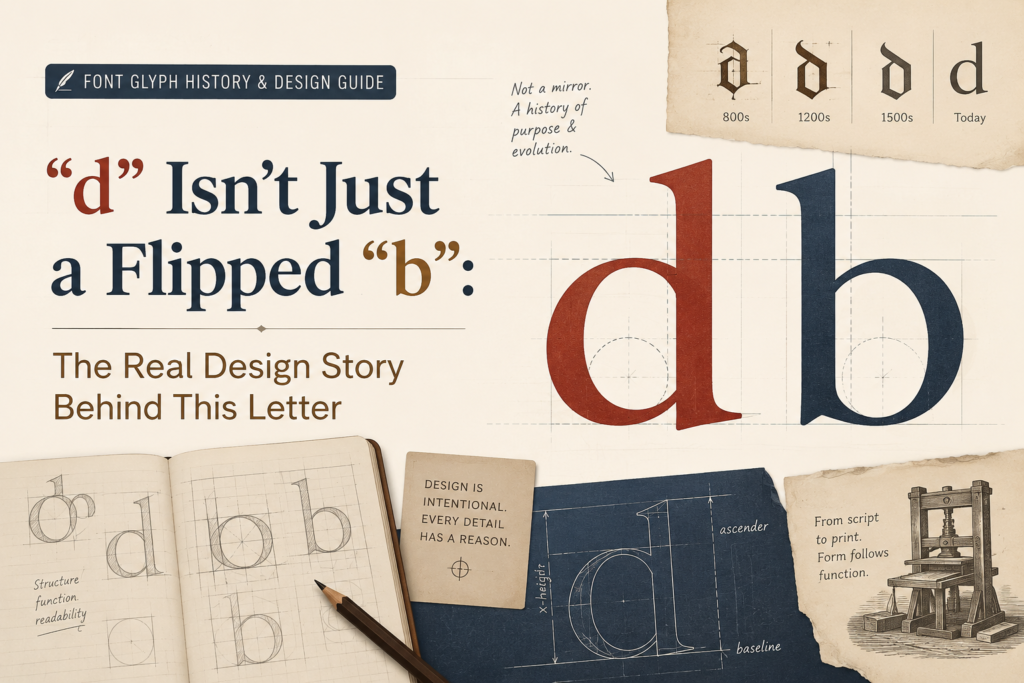
If lowercase “b” is a stem with a bowl on the bottom, “d” is its mirror image — a bowl on the left, a stem rising on the right. On paper that sounds like the simplest relationship in the alphabet: flip one letter, get the other. In practice, type designers will tell you that’s almost never true. “d” needs its own optical corrections, its own bowl proportions, and its own personality, even though it shares bones with “b.” This is the fourth entry in our glyph series, following “a,” “b,” and “c.” Today we’re taking apart “d.”
A Short History of “d”
“d” descends from the Phoenician letter dalet, meaning “door,” and the early pictogram is believed to have represented the triangular shape of a tent flap or doorway — a fitting origin for a letter that, structurally, still reads as an enclosed space attached to a frame. The Greeks adopted it as delta, keeping the triangular form largely intact; you can still see that geometry in the modern Greek capital delta today.
When the letter passed into Etruscan and then Latin, it rounded out considerably. Roman capital “D” settled into the shape we know now: a straight vertical stroke on the left, joined by a curved stroke that bulges out to the right and returns. That’s essentially a stem-and-bowl letter already, just oriented differently from how the lowercase eventually turned out.
Lowercase “d” itself didn’t exist during the capitals-only era of Roman inscriptions. It emerged the same way most lowercase letters did — through the pressure of scribes writing quickly by hand, and later through the standardization pushed during the Carolingian Renaissance in the 8th and 9th centuries. Interestingly, an early handwritten variant of lowercase “d” had a slanted, diagonal ascender rather than a straight vertical one — you can still see traces of this uncial-style “d” survive in some blackletter and heavily calligraphic typefaces today, where the ascender leans rather than standing straight up.
Anatomy of a Lowercase “d”
Lowercase “d” is built from an ascender — the vertical stroke that rises above the x-height — and a bowl, the enclosed rounded shape attached to its base. This is the same vocabulary used for “b,” just mirrored: instead of the bowl sitting to the right of the stem, in “d” the bowl sits to the left of the stem, since the reader encounters the curved shape first, then the vertical stroke.
The point where stem and bowl meet is the joint, and just like in “b,” this is one of the most heavily scrutinized details in the whole glyph. Get the joint too abrupt, and the letter feels stiff. Get it too soft, and the shape can blur together at small sizes, especially in dense body text.
Here’s the detail that surprises people who assume “d” is just a flipped “b”: the bowl in “d” is very often drawn slightly differently from the bowl in “b,” even in the same typeface. This is because the eye reads letters left to right, and a bowl positioned before an ascender can feel visually different in weight and balance compared to a bowl positioned after one. Many type designers adjust the width, curve tension, or even the overshoot of “d”‘s bowl independently, rather than mechanically mirroring “b” and calling it done.
“d” also needs to be checked carefully against “a” and “o,” since all three share curved bowl shapes that need consistent tension, and against “b,” “p,” and “q,” the broader stem-and-bowl family it belongs to.
Designing the Letter From Scratch
Most type designers draw “d” directly after finishing “b,” since the two letters share so much structural DNA. The typical process starts by taking the finished “b” and literally flipping it horizontally as a rough starting point — but that’s where the shortcut usually ends.
Once the letter is flipped, the designer looks at how it reads in actual words. Because “d” comes up constantly next to round letters like “o” and “a” (words like “and,” “dog,” “made”), the bowl’s curve needs to feel visually compatible with those neighbors specifically, not just internally consistent with “b.” This sometimes means widening or narrowing the bowl slightly, or adjusting where the curve is thickest, so “d” doesn’t look like an afterthought bolted onto the rest of the lowercase set.
The ascender height and stroke weight get locked to match “b,” “h,” “k,” and “l” — all the ascending lowercase letters need to top out at a consistent height, or the whole line of text starts to look uneven, almost like it’s vibrating.
Overshoot is handled here too, the same principle used in “a,” “b,” and “c”: since the bowl is rounded, it needs to dip slightly below the baseline and rise slightly above the x-height compared to flat-bottomed letters, or it will look optically smaller than its neighbors even though the measurements are technically aligned.
Finally, once “d” is finished, designers cross-check the whole stem-and-bowl family together — “b,” “d,” “p,” and “q” side by side — making sure none of them looks like a lazy mirror-copy of another, while still feeling like they clearly belong to the same typeface.
Summary
Lowercase “d” proves that mirroring a letter is never as simple as flipping a shape horizontally — even though “d” and “b” share the same basic stem-and-bowl anatomy, each needs its own optical adjustments to read correctly in real words. From a Phoenician door or tent flap, through a triangular Greek delta, to the rounded Carolingian form that eventually stabilized into the letter we use today, “d” carries a surprisingly rich backstory for something that looks, at a glance, like a simple flipped “b.”